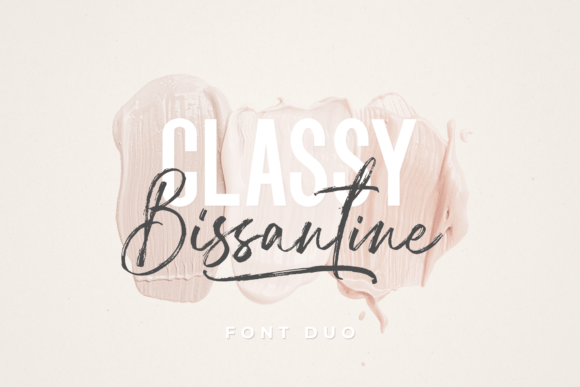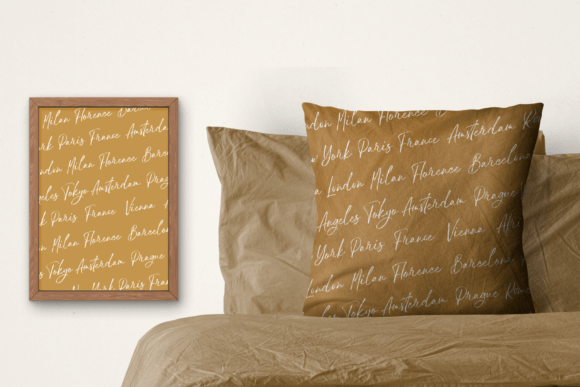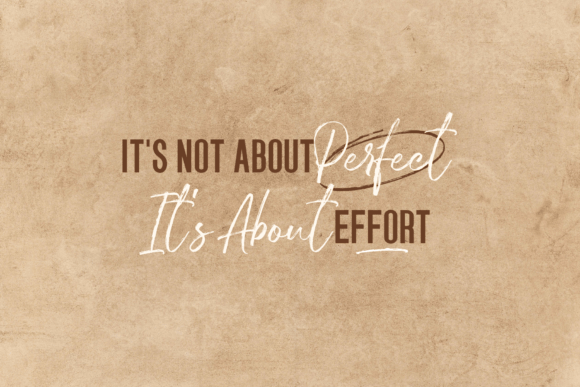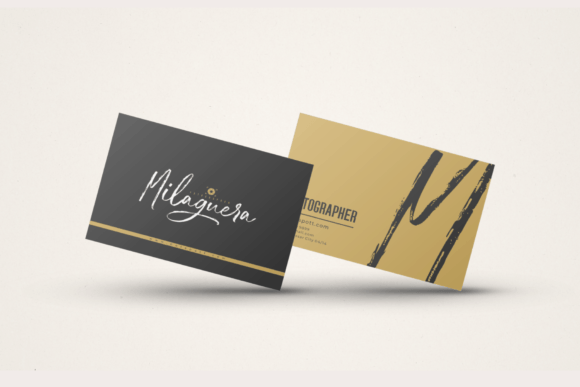
Classy Bissantine Duo Font
About the Classy Bissantine Duo Font
Unleash your creativity with Classy Bissantine Duo Font, a versatile font perfect for a wide range of applications. Classy Bissantine is a sophisticated and elegant font duo, featuring both a script and a sans serif typeface. This font combination is perfect for a wide range of applications, from branding and promotional materials to packaging, business cards, magazines, quotes, wedding designs, and overlays on images.
The Classy Bissantine Duo excels in applications requiring a touch of refined elegance. It’s ideal for headlines, logos, short-form text on packaging, and stylish invitations. The script font adds a personalized feel, while the sans serif offers readability for essential information. Avoid using it for large blocks of body text or UI elements where legibility is paramount.
Its sophisticated personality lends itself well to luxury brands, high-end fashion, and boutique businesses. Consider pairing the script with a clean, geometric sans-serif for a modern contrast, or a classic serif for a more traditional feel. The sans-serif component pairs well with many fonts, allowing for versatile design combinations.
For a softer aesthetic, a delicate serif or a rounded sans-serif would complement the Classy Bissantine Duo. Conversely, a bolder, more modern sans-serif could create a striking juxtaposition for impactful designs.
Classy Bissantine Duo Font Example